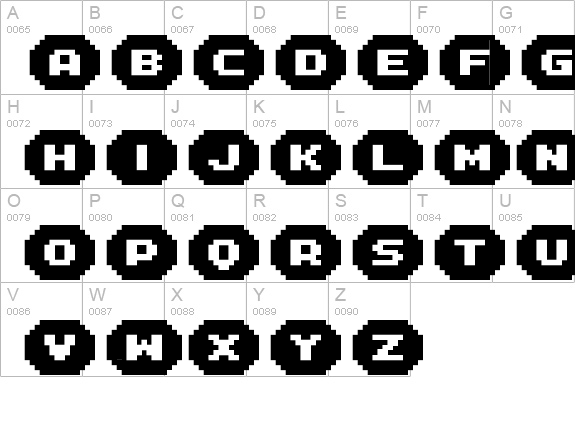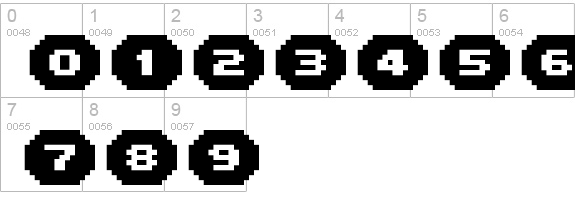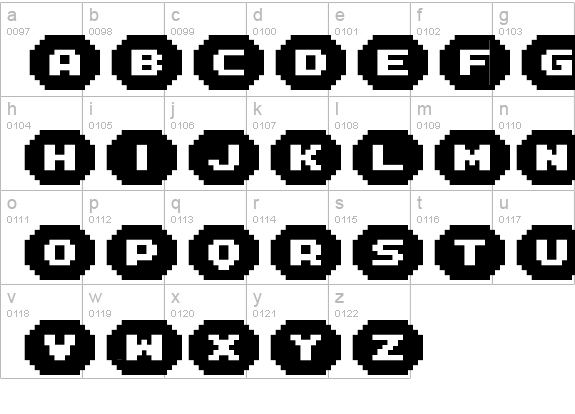
FFF Interface08b font is a modern and stylish typeface that combines sleek lines with a futuristic feel. This font exudes a sense of sophistication and professionalism, making it perfect for a wide range of design projects. With its clean and crisp letterforms, FFF Interface08b font is highly legible and versatile, suitable for both digital and print applications. One of the best things about FFF Interface08b font is that it is completely free to download. You can easily access this unique and eye-catching font at FontsMarket.com, where you can enhance your designs with this distinctive typeface without any cost. Whether you are working on a website, a logo, a poster, or any other creative project, FFF Interface08b font will add a touch of elegance and modernity to your work. Don't miss out on this fantastic opportunity to elevate your design projects with this exceptional font – download FFF Interface08b font today!